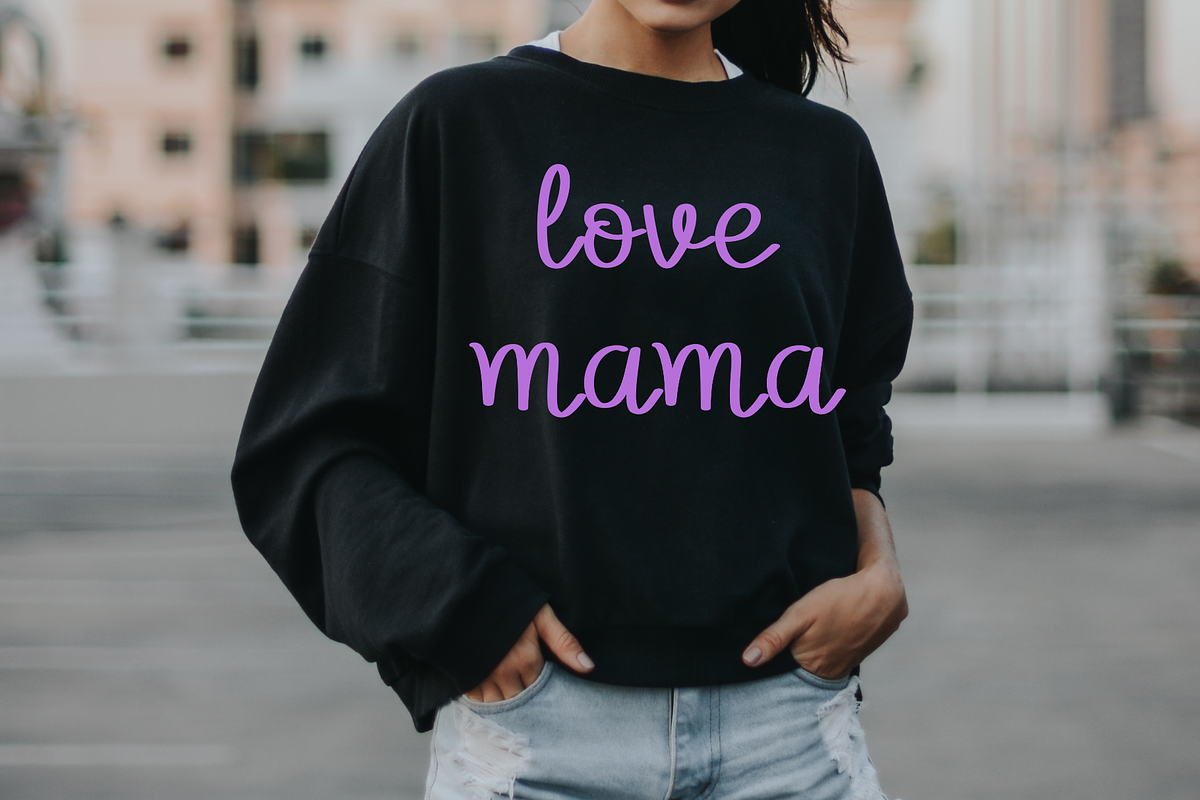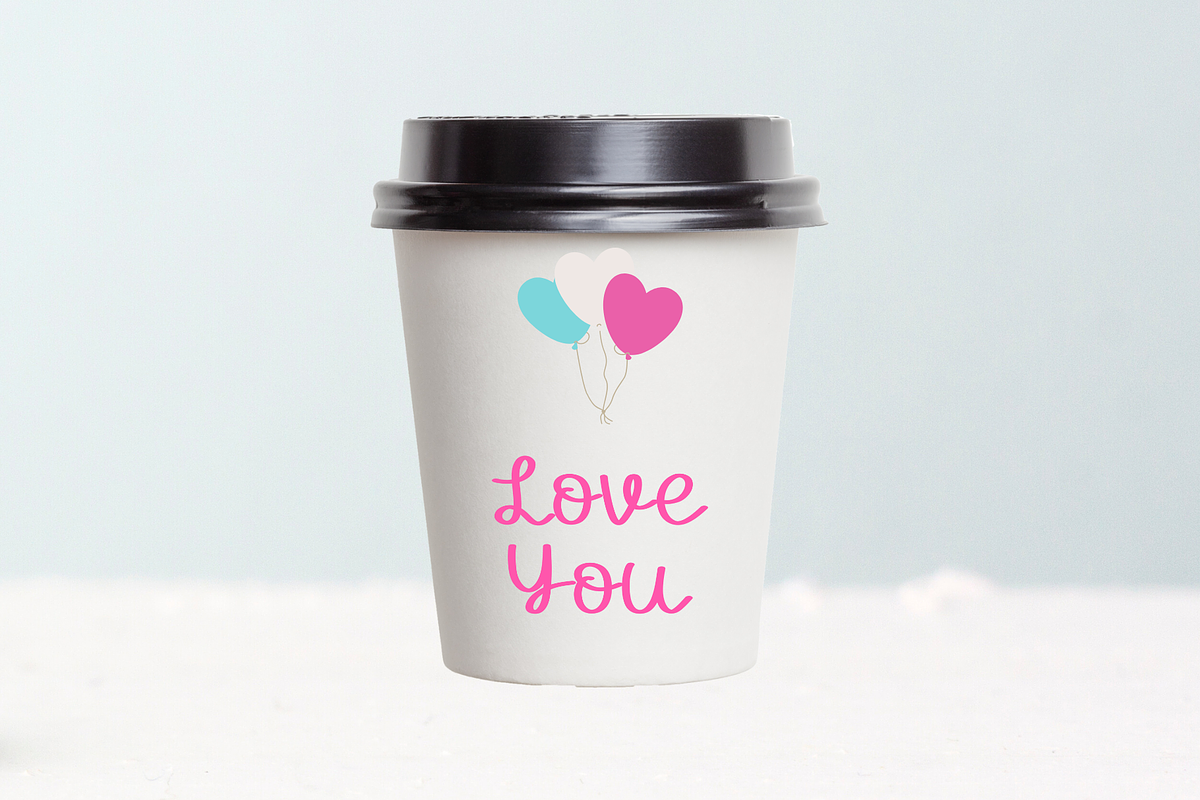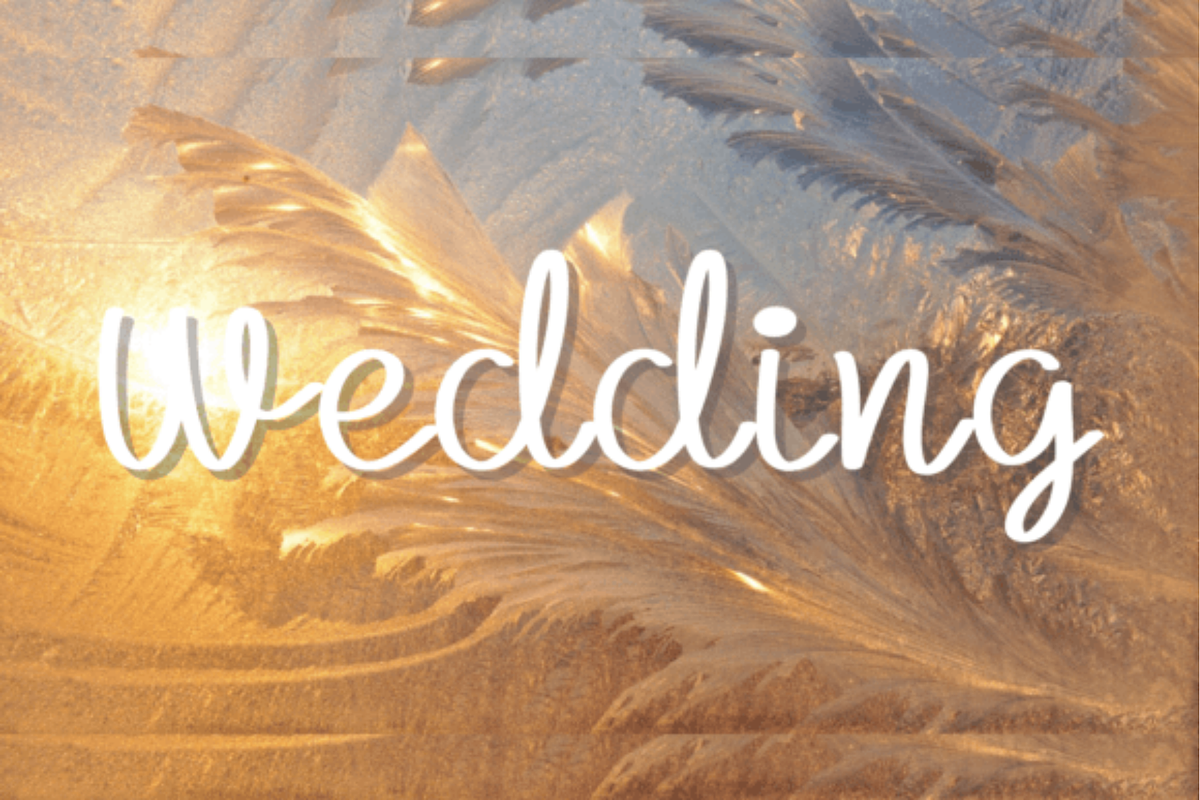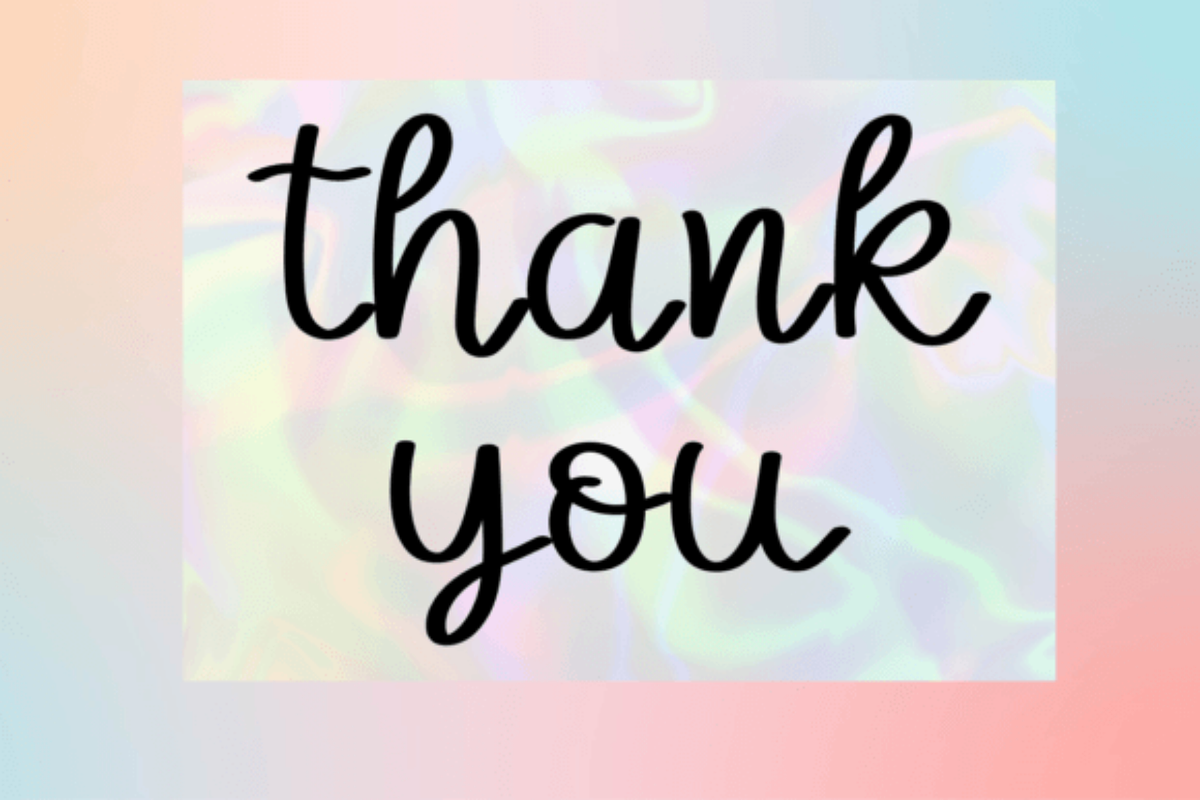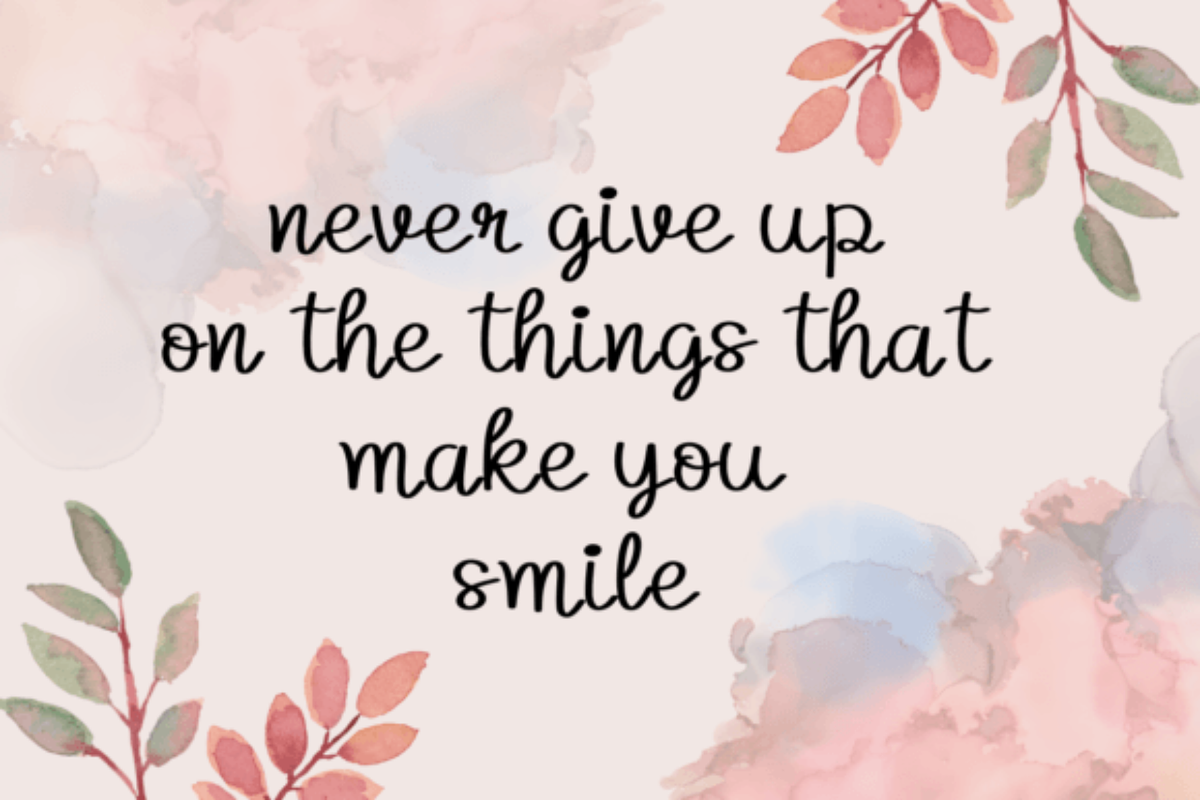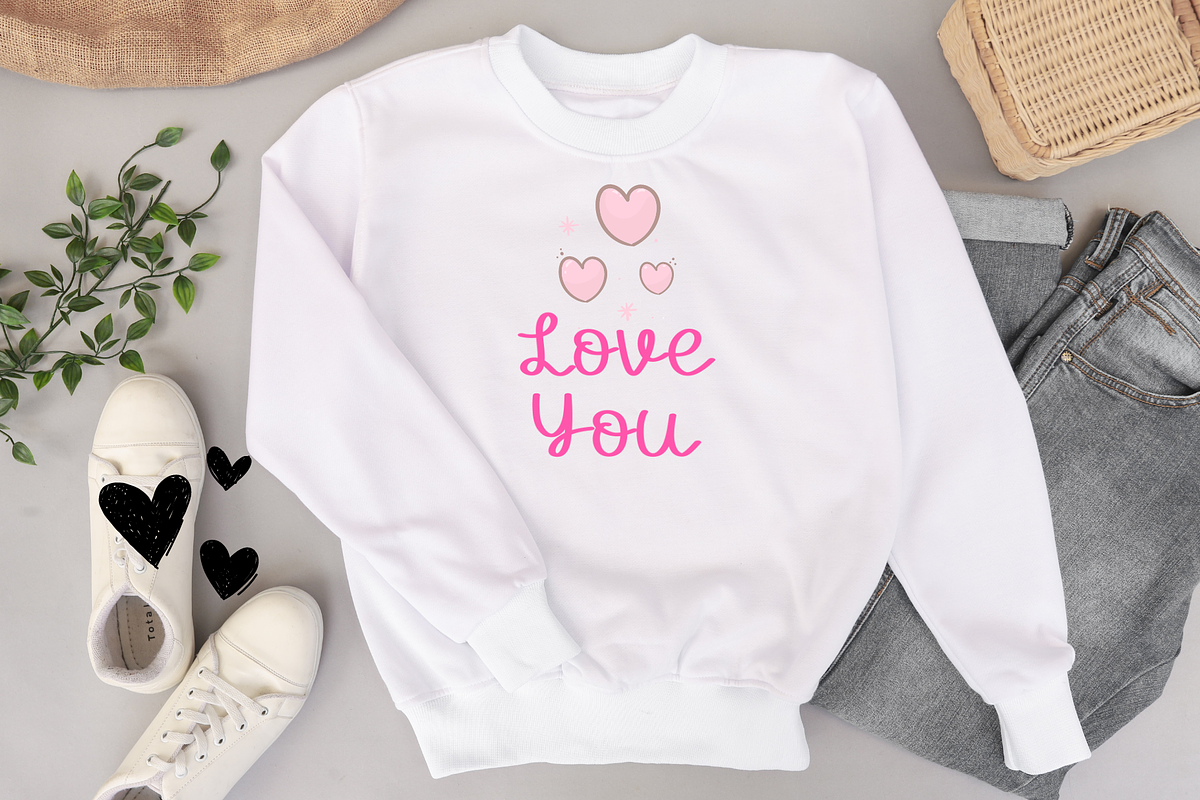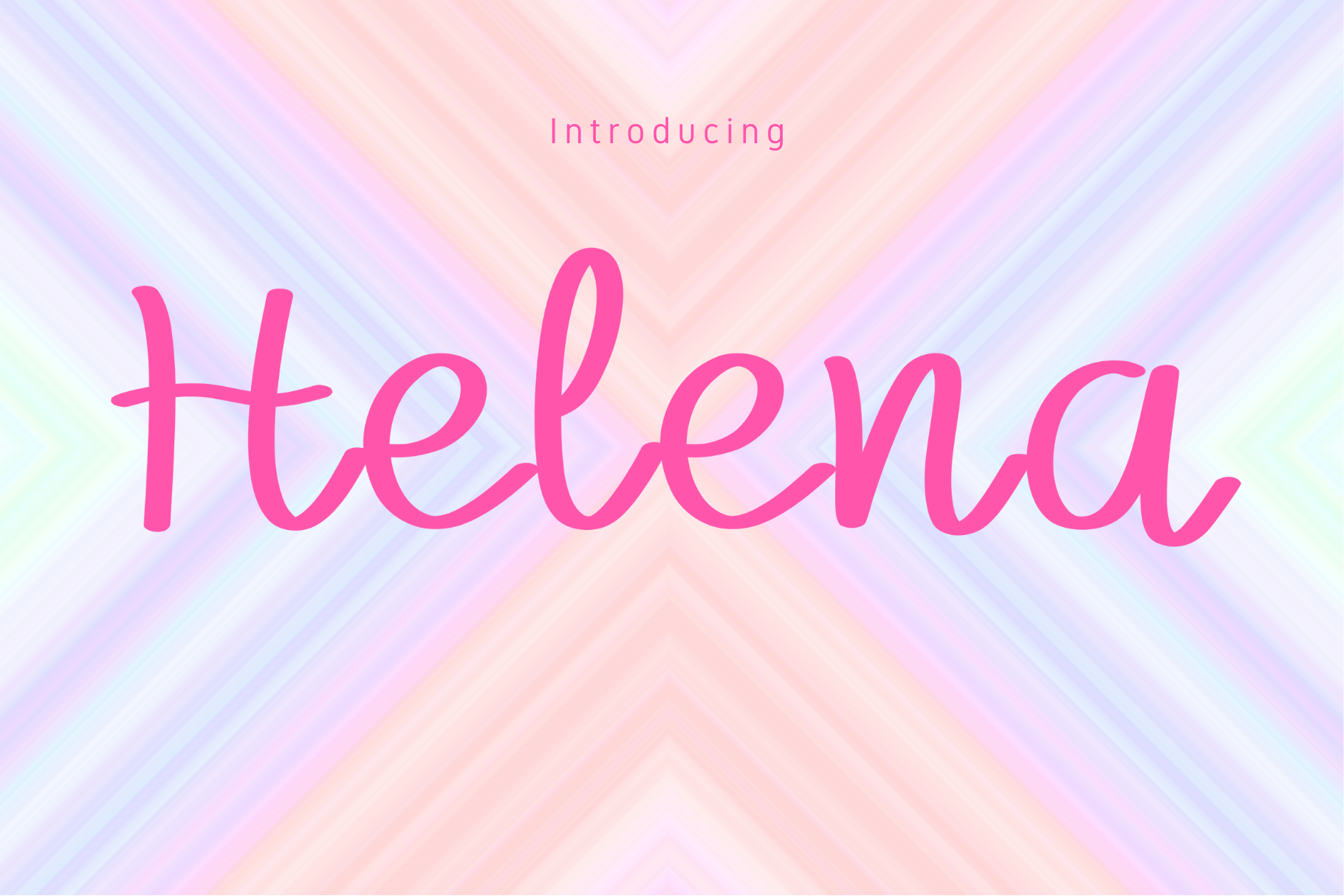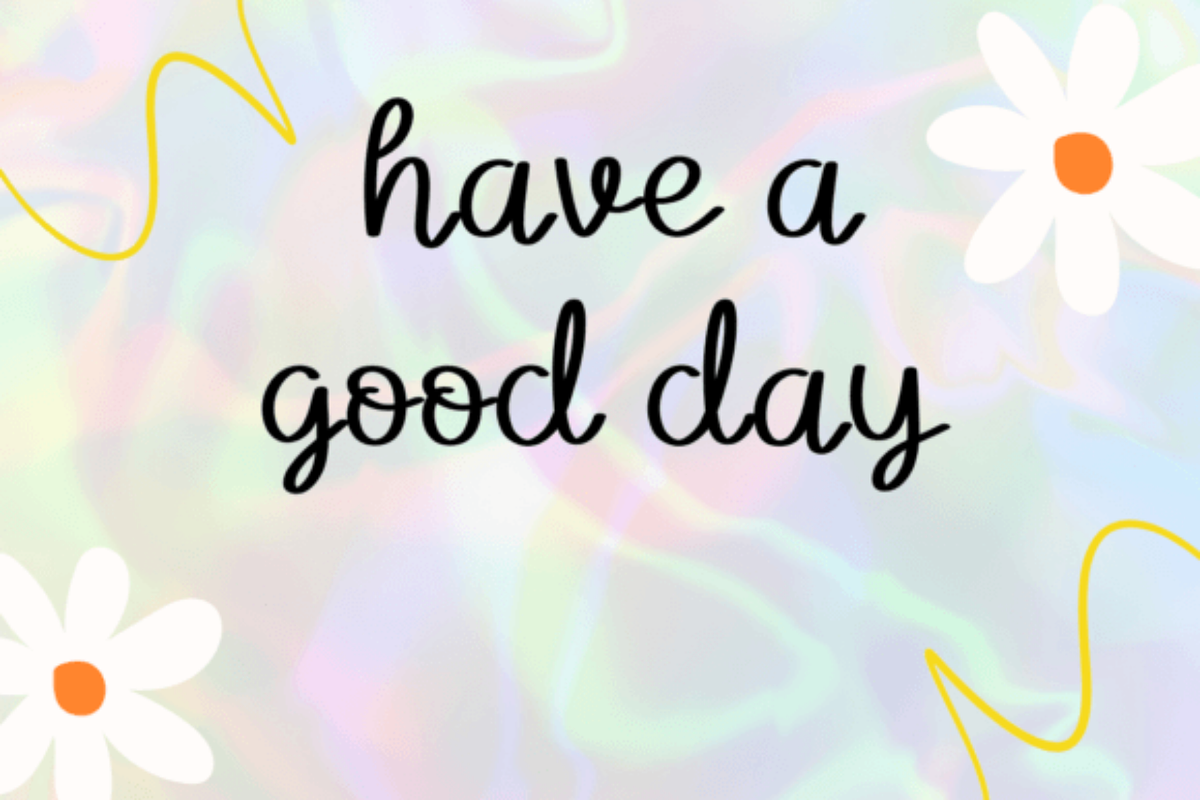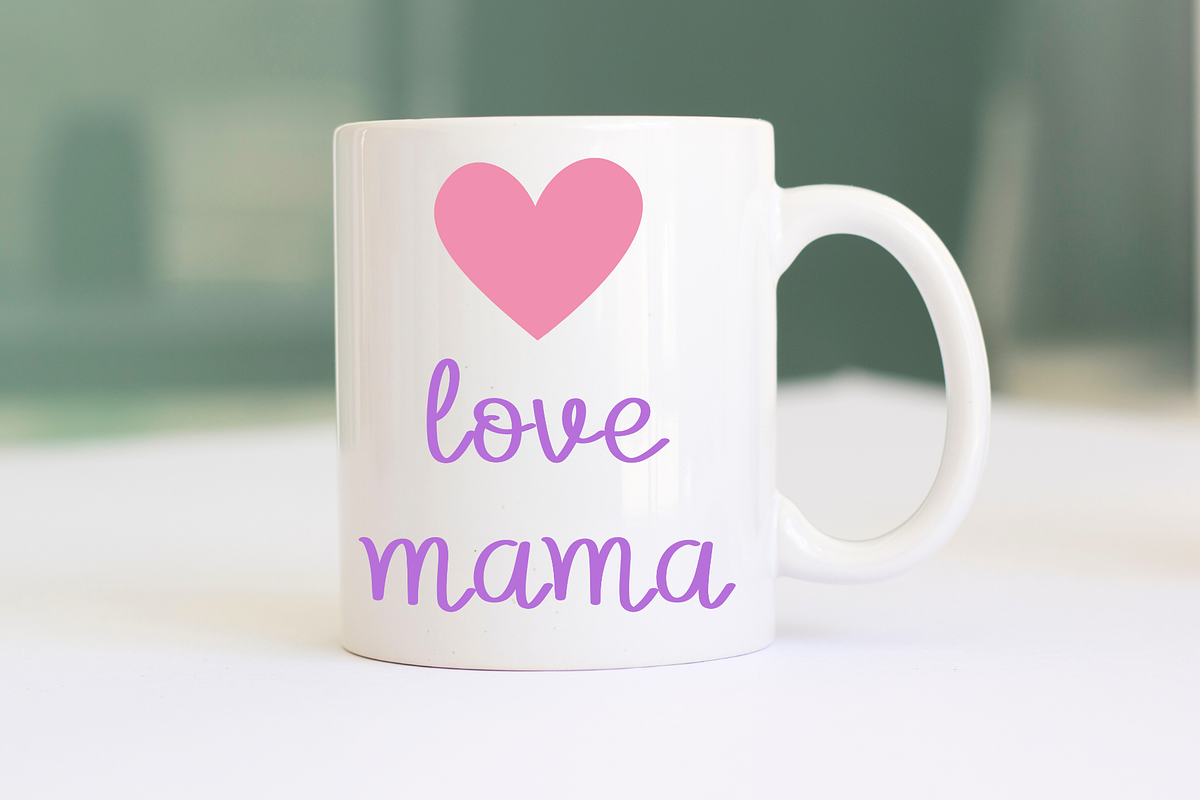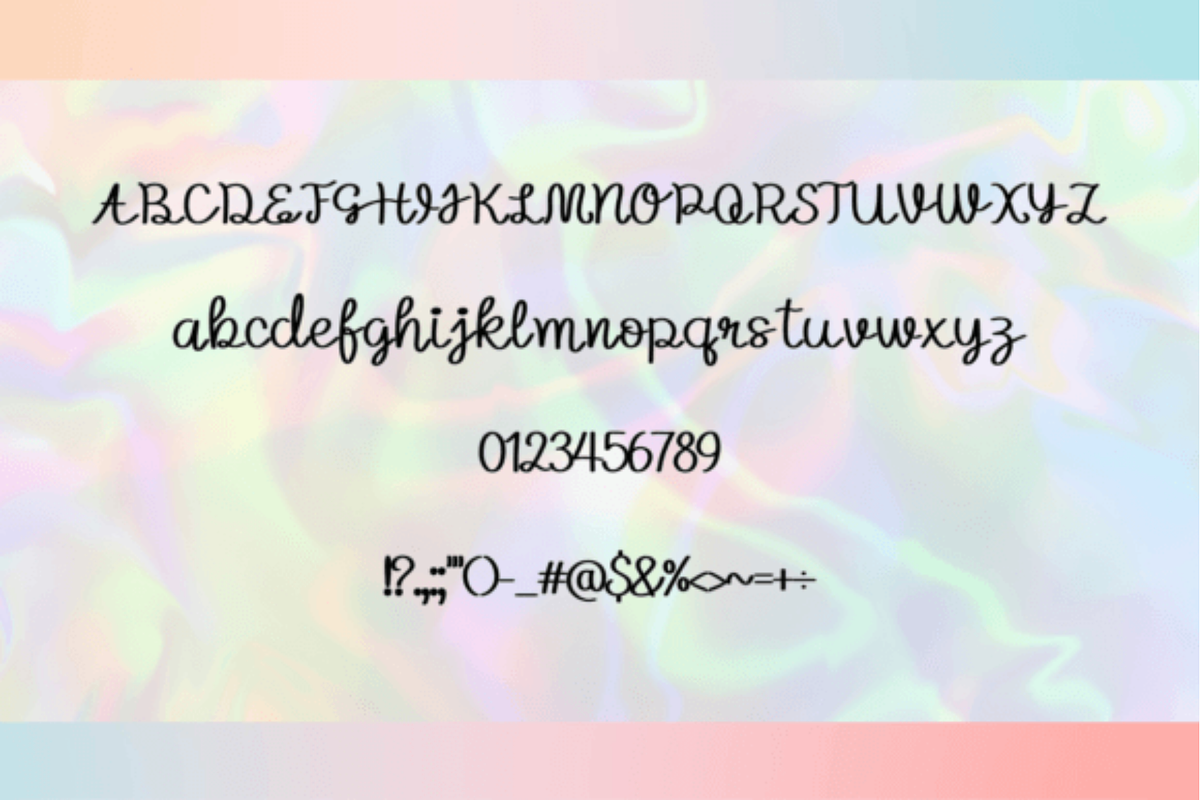
Helena Font
Helena is a cute and groovy handwritten display font suitable for designing T-shirts, tote bags, hats, stickers, wedding invitations, logos, cards, quotes, and more!